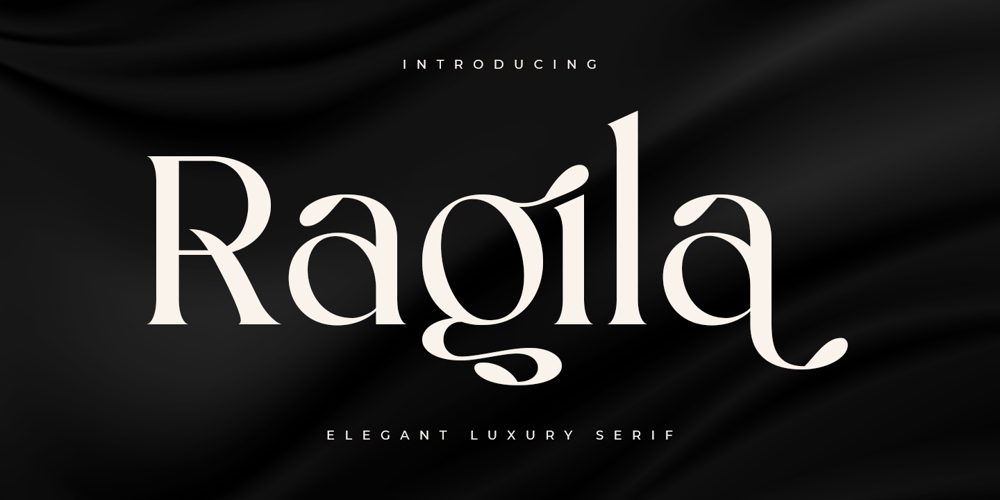
Ragila
Ragila font
Ragila Font Family was designed by Zamroni Hamzah and published by Sensatype Studio. Ragila contains 1 styles and family package options. A Serif font that we created special for luxury branding needs, with extra ligature and alternates in unique shape will be ready to add value of your brand. It so nice to leverage designer or product owner that need solutions to make their design look more Luxury and modern. And specially for Ragila font, We prepared any ligatures, and any alternate characters to help you create unlimited variations for your creative needs.Ragila font ready with: Any options to get creative variations (combination of Alternate and Ligatures) 4 format already Preview as a inspirations that you can do with Ragila font Ready with Lowercase and Uppercase characters Wish you enjoy our font. ๐Ÿ™‚